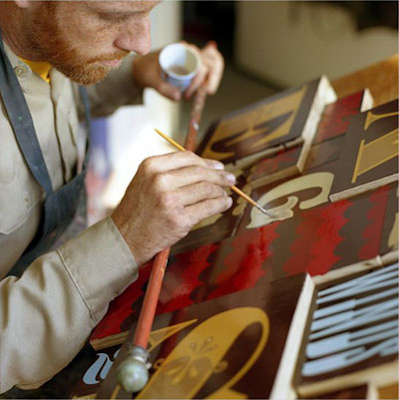
TypeFace Tuesday :: Jeff Canham
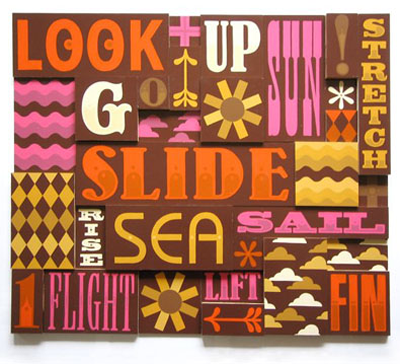
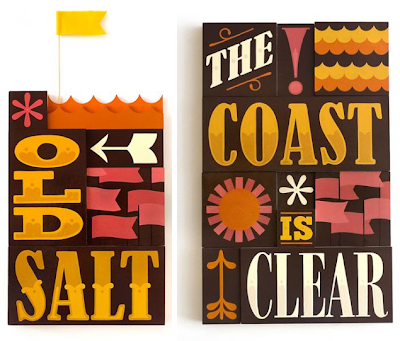
A big thank you to MAIYA reader Mel for sending this my way! Jeff Canham is a very talented artist/designer/sign painter based out of San Francisco. His hand lettering is absolutely amazing! Be sure to check out this short video of Jeff painting the mural-sized One Step Forward sign.